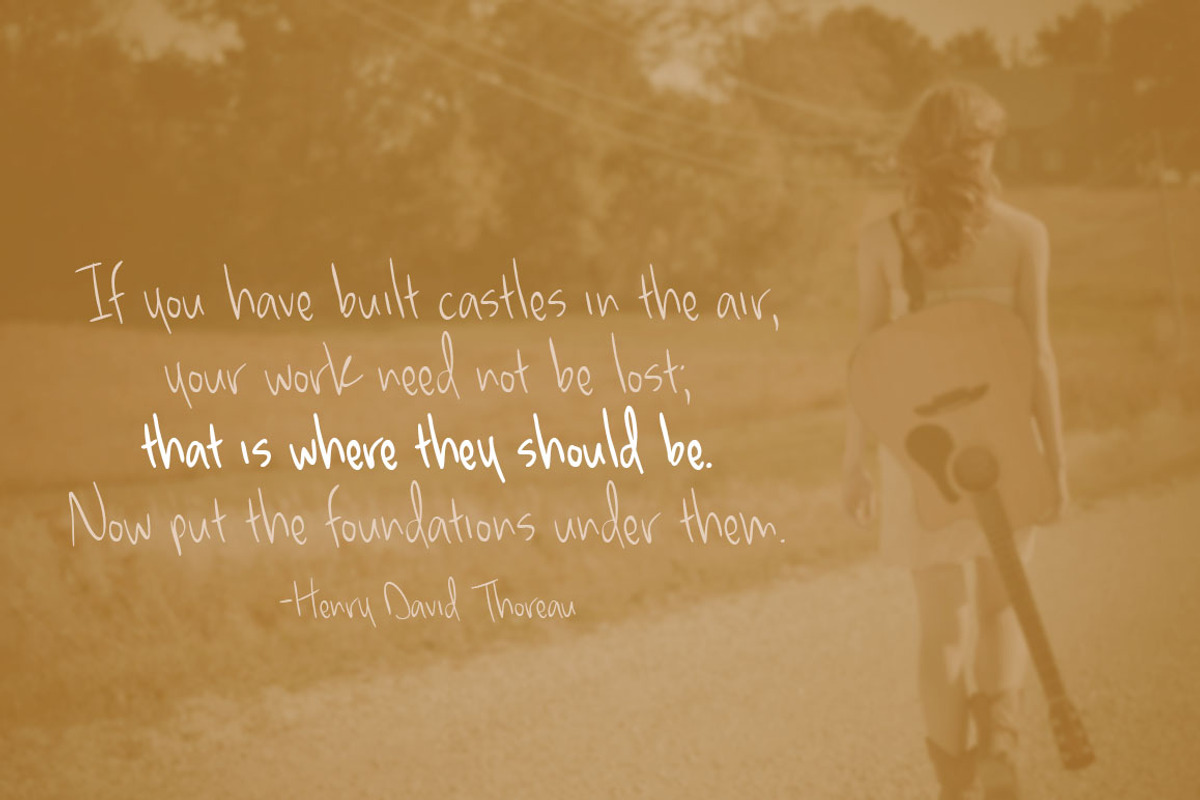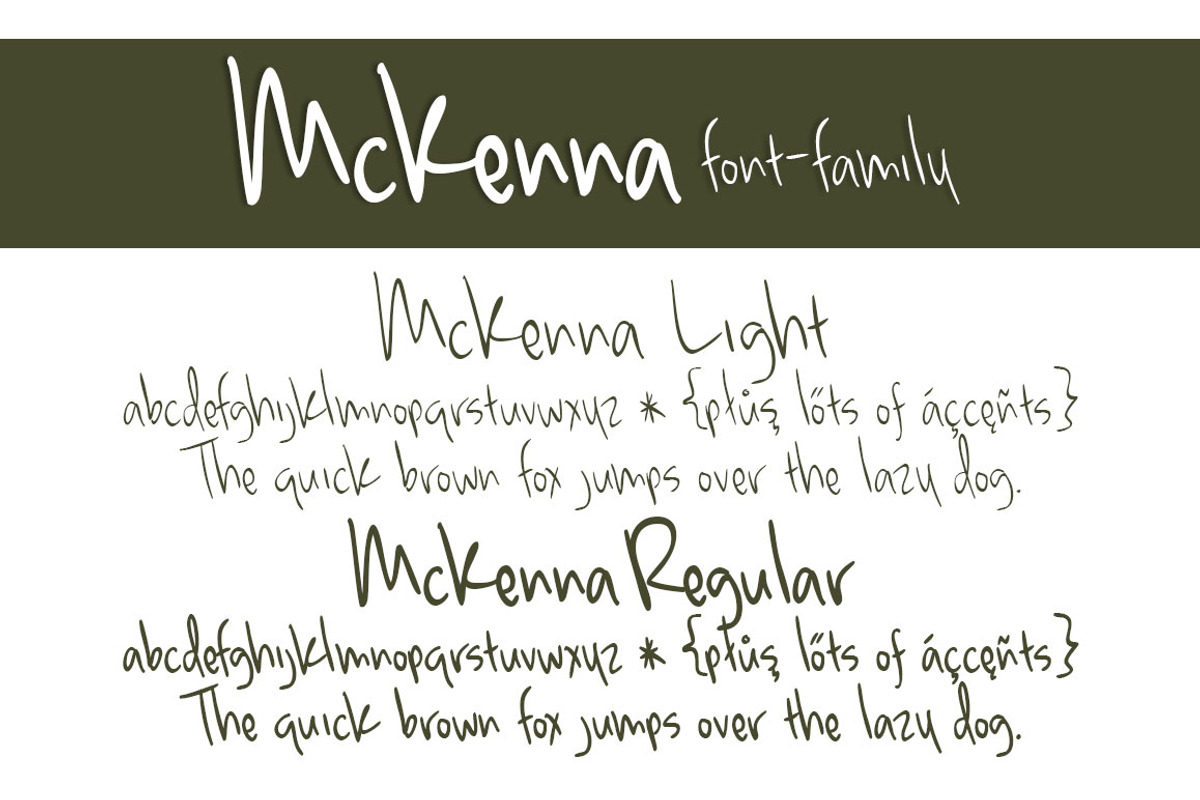
McKenna Font Family
McKenna Font Family by Brittney Murphy Design is a font selected for branding, posters, packaging, typography.
- McKenna Light
- McKenna Regular
Why McKenna Font Family is worth a look
McKenna Font Family by Brittney Murphy Design fits naturally into Branding, posters, packaging, typography.